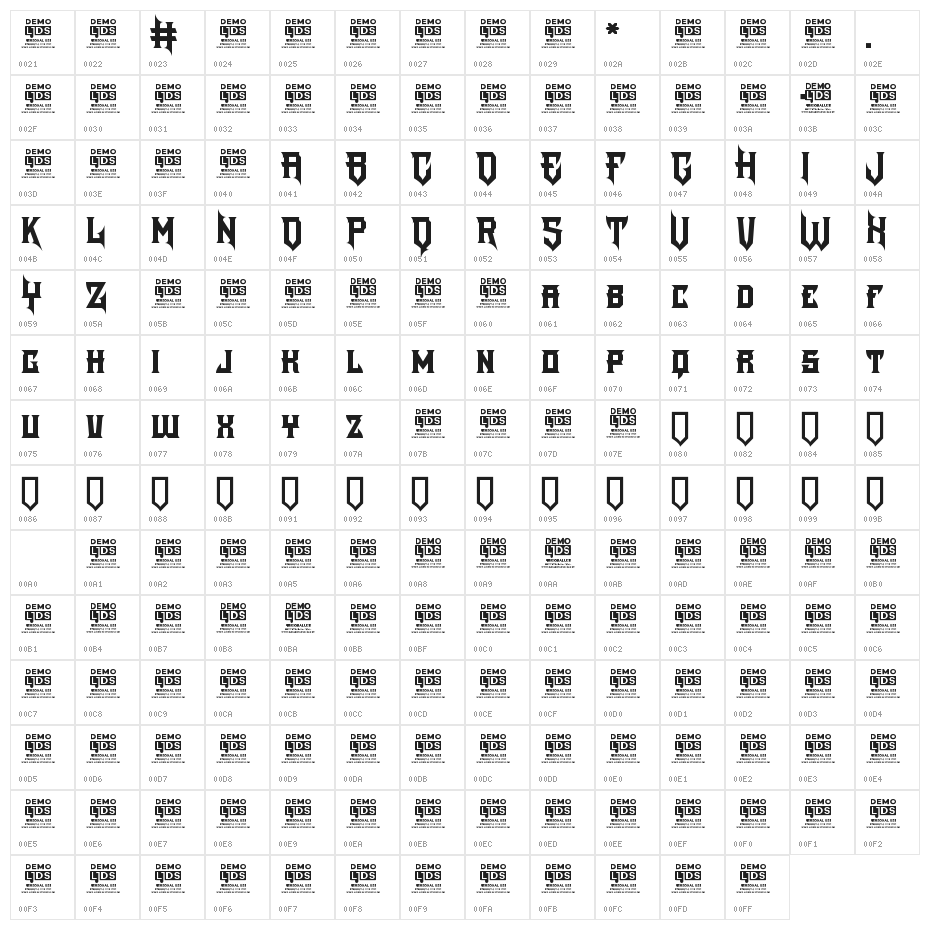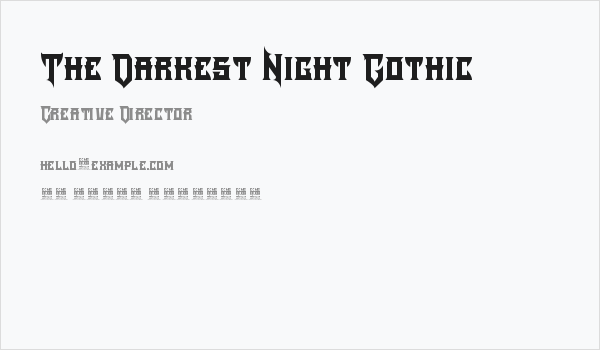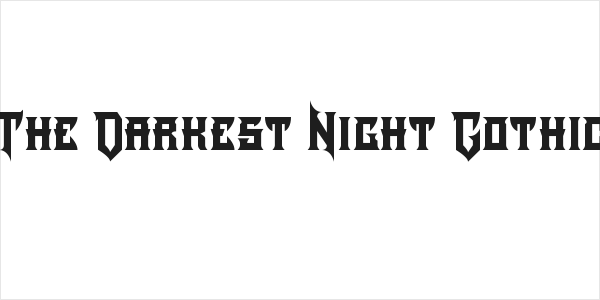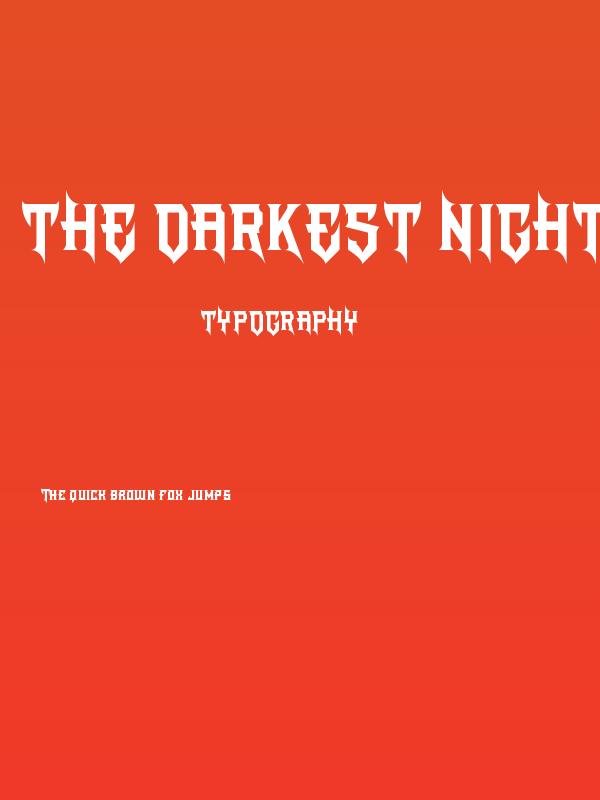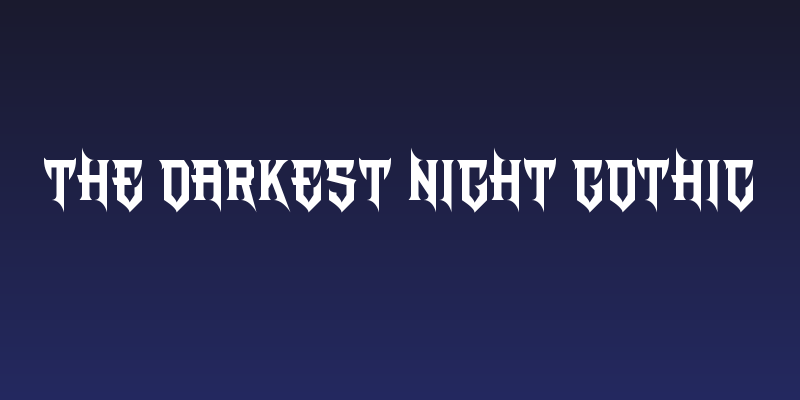
The Darkest Night Gothic Font
| 整体风格 | Gothic, Dramatic |
| 使用场景 | Headlines, Logos, Decorative |
| 推荐项目 | Ideal for horror-themed designs, fantasy book covers, gothic event invitations, and any project requiring a dark, mysterious aesthetic. |